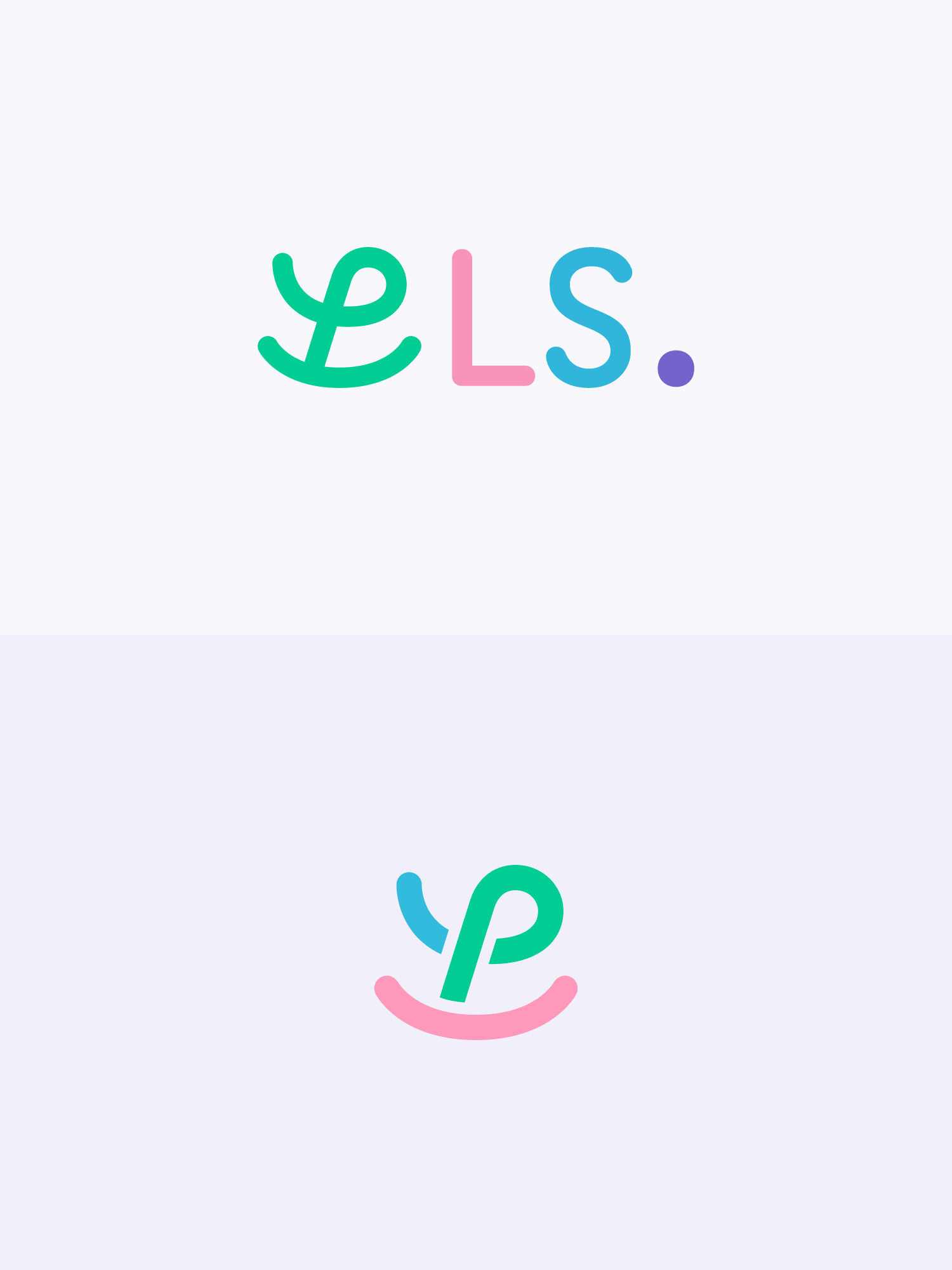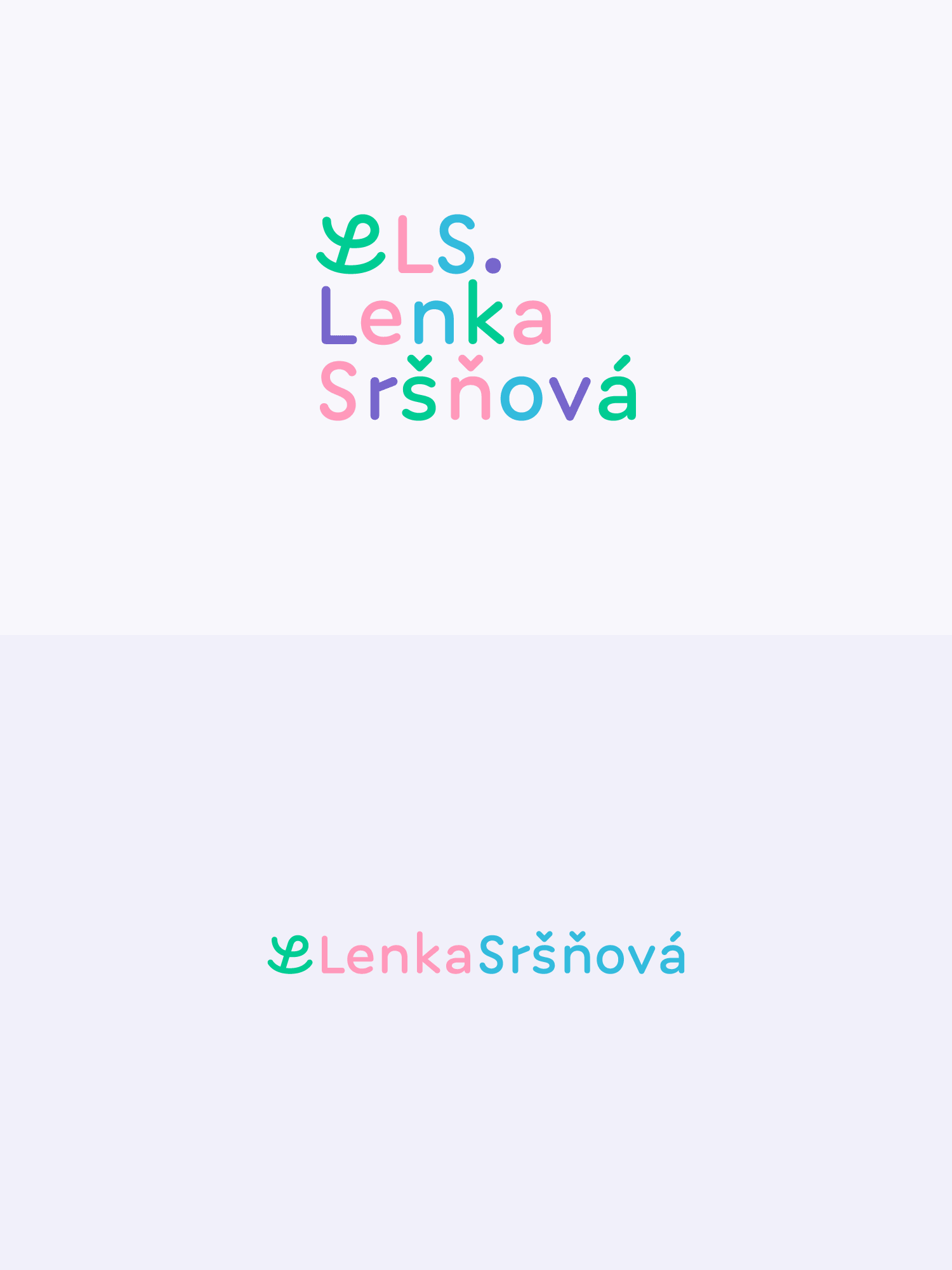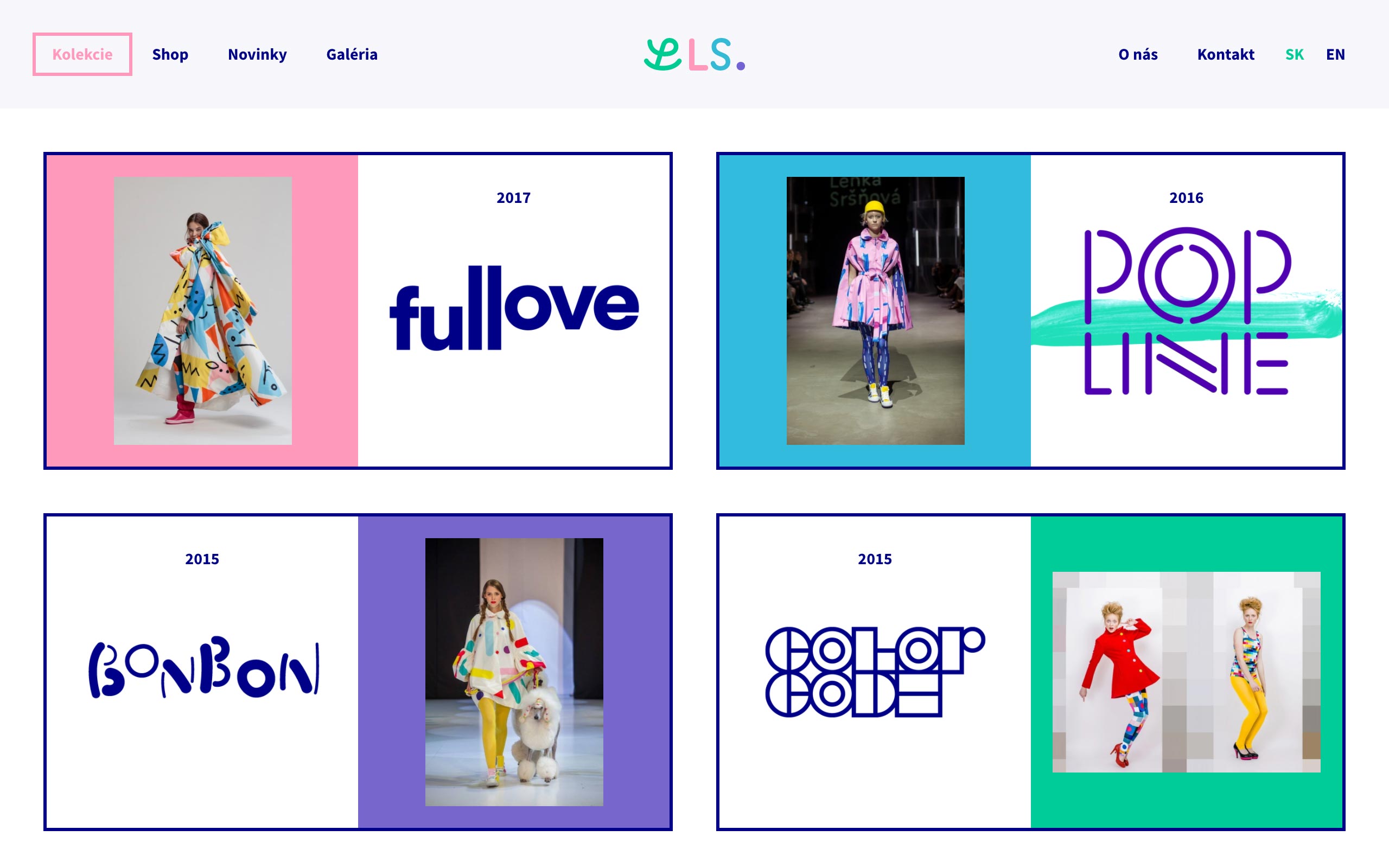
Lenka Sršňová
A logo for my dear friend, fashion designer Lenka Sršňová. Lenka’s view of fashion is rather specific – her usage of daring, experimental patterns is eye-catching and quite unique among Slovak designers. She loves intense colors, bold patterns and puts a great emphasis on detail, humor and symbolism.
The colors chosen for the logo are fairly muted, trying not to clash with the strong prints of Lenka’s clothes. The typeface used is Sonda, an unreleased typeface currently not further developed but available for licensing on request.